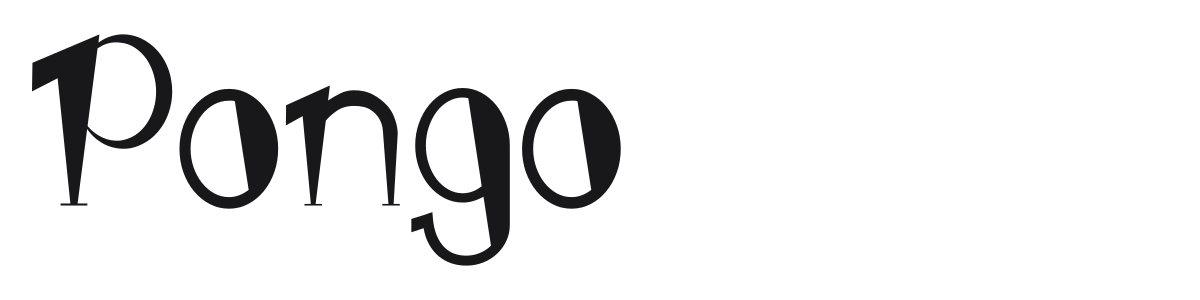
Pongo
Pongo is an eccentric display serif built on deliberate irregularity, with letters that tilt, vary wildly in height, and swap between thick wedge serifs and sharp tapered terminals. The result reads as hand-carved or crudely cut, somewhere between a storybook woodcut and a one-of-a-kind signpainter's alphabet. It thrives at large sizes where the texture and personality can fully register.